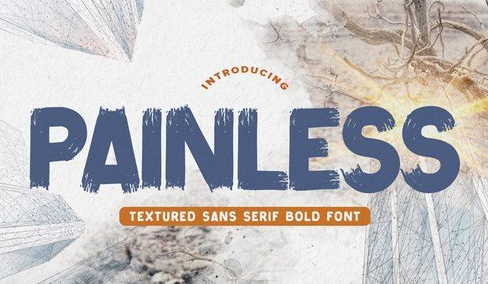
Painless – Textured Sans Serif Bold Font
Introducing Painless is a Textured Sans Serif Bold Font that is written casually and quickly. Letters are made with brushes on Procreate. Then crafted carefully drawn into vector format. That is why Painless has charming, authentic and relaxed characteristic more natural look to your text with a more natural look to your text.It also has many alternatives and underlines that make your text and design more interesting. Amicable is perfect for homeware designs,branding projects, Logo design, Quotes product packaging.